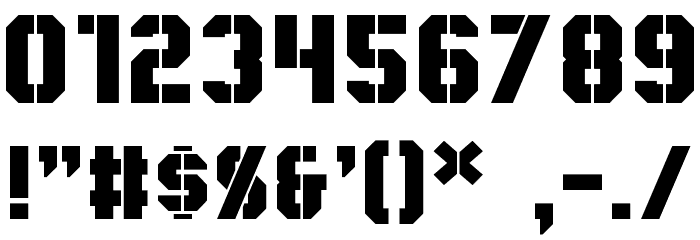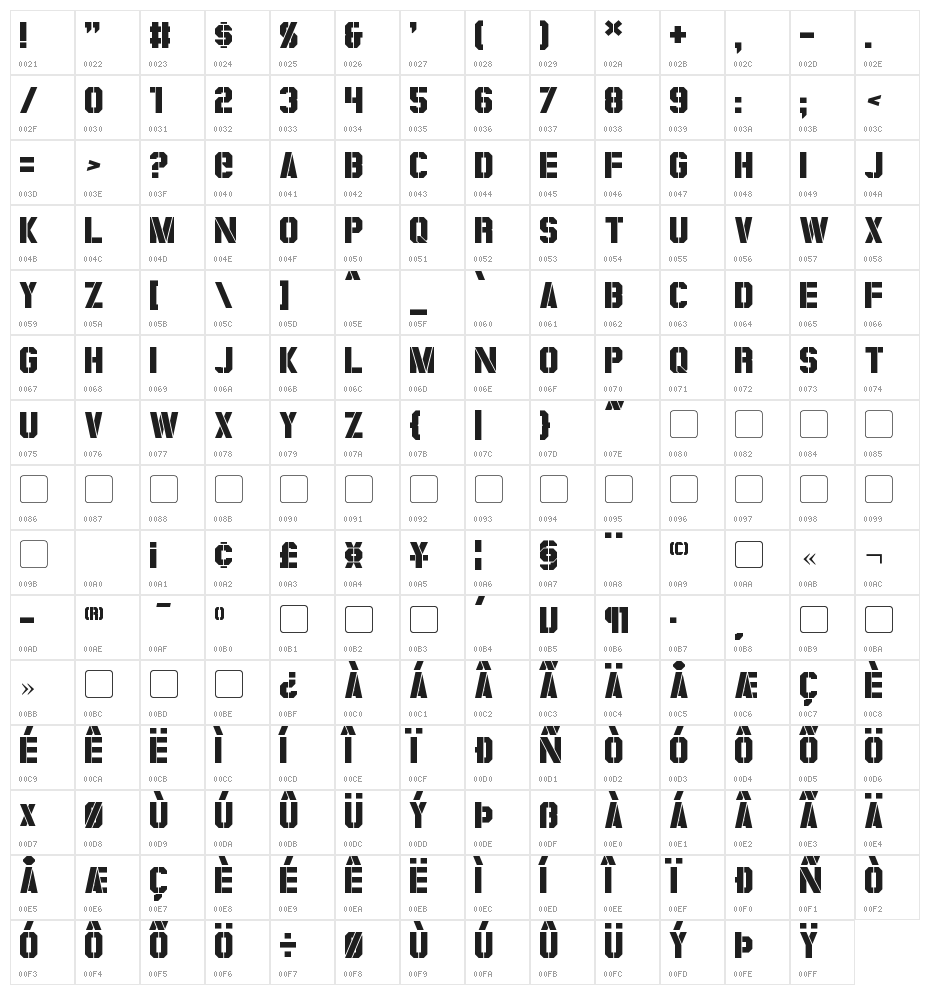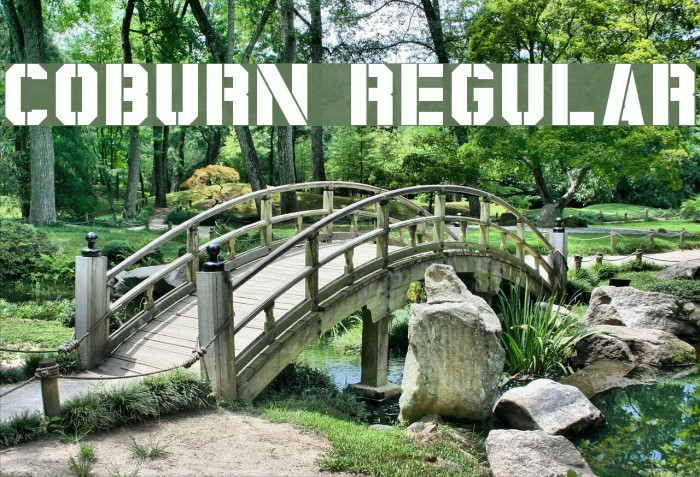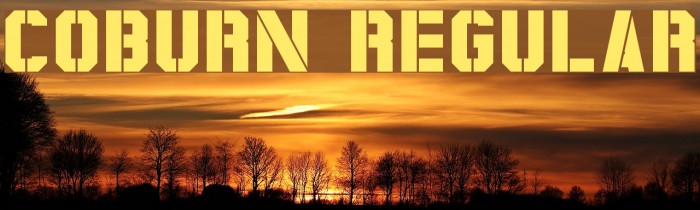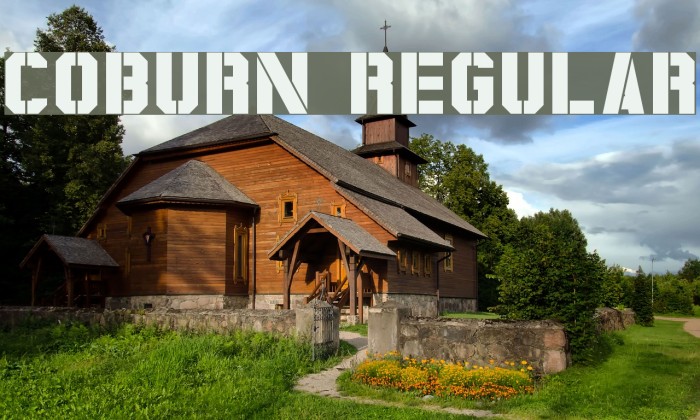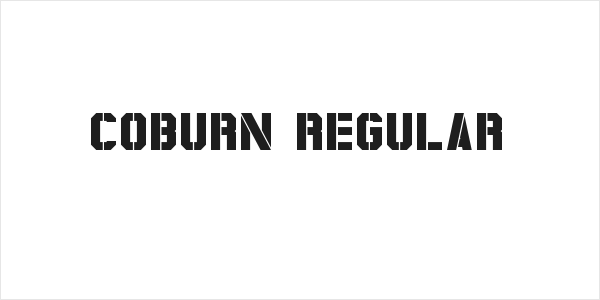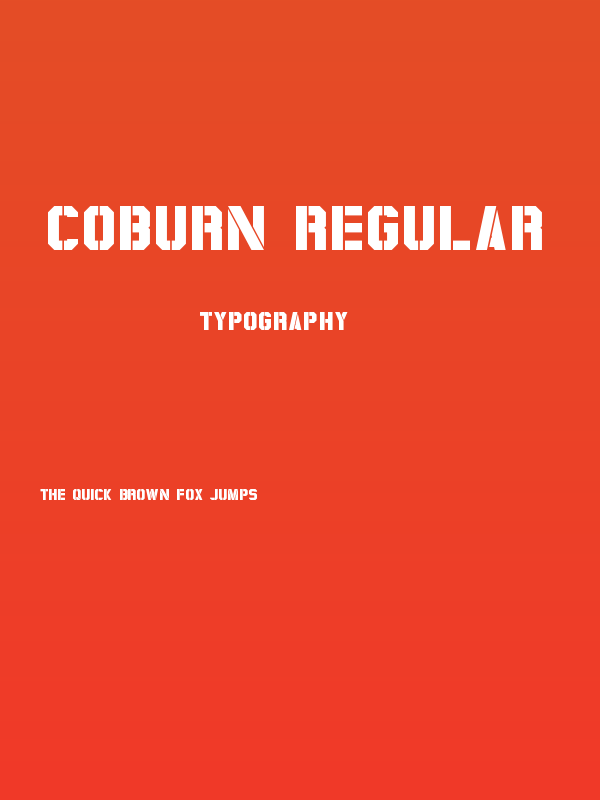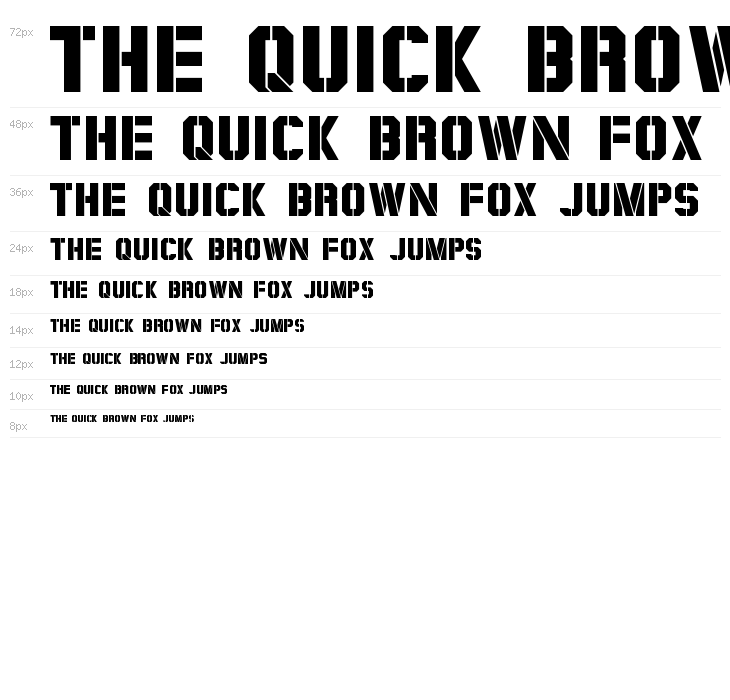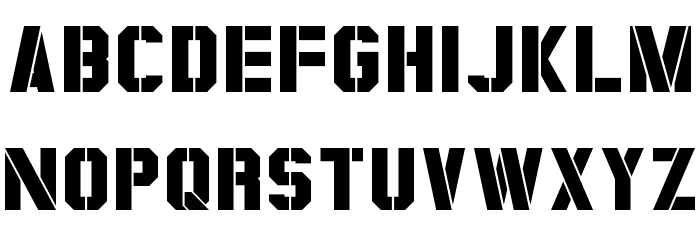
Coburn Regular Font
Coburn Regular Description
This font features a bold, geometric design with a distinct stencil-like appearance. Each character is constructed with sharp angles and clean lines, creating a modern and industrial feel. The uppercase and lowercase letters maintain a consistent style, with the uppercase being slightly more pronounced. The numerals and special characters follow the same design principles, ensuring uniformity across all glyphs. This font's unique cut-out sections add a dynamic and edgy touch, making it stand out in any design project.